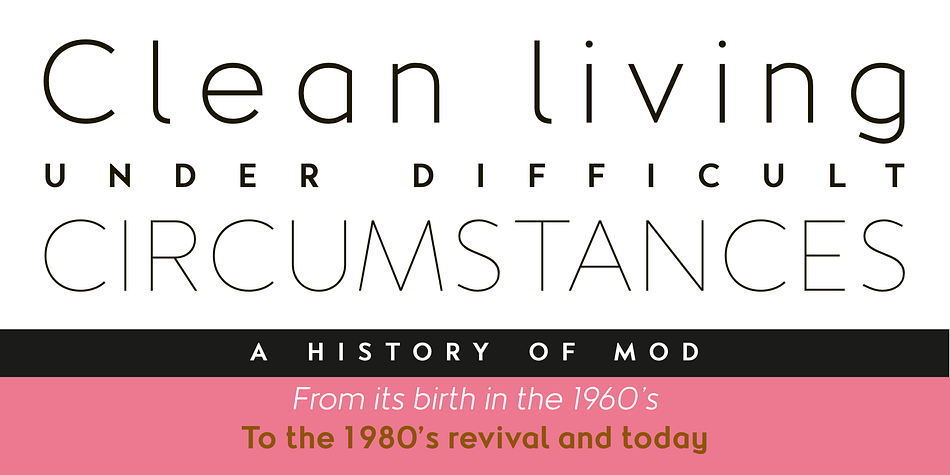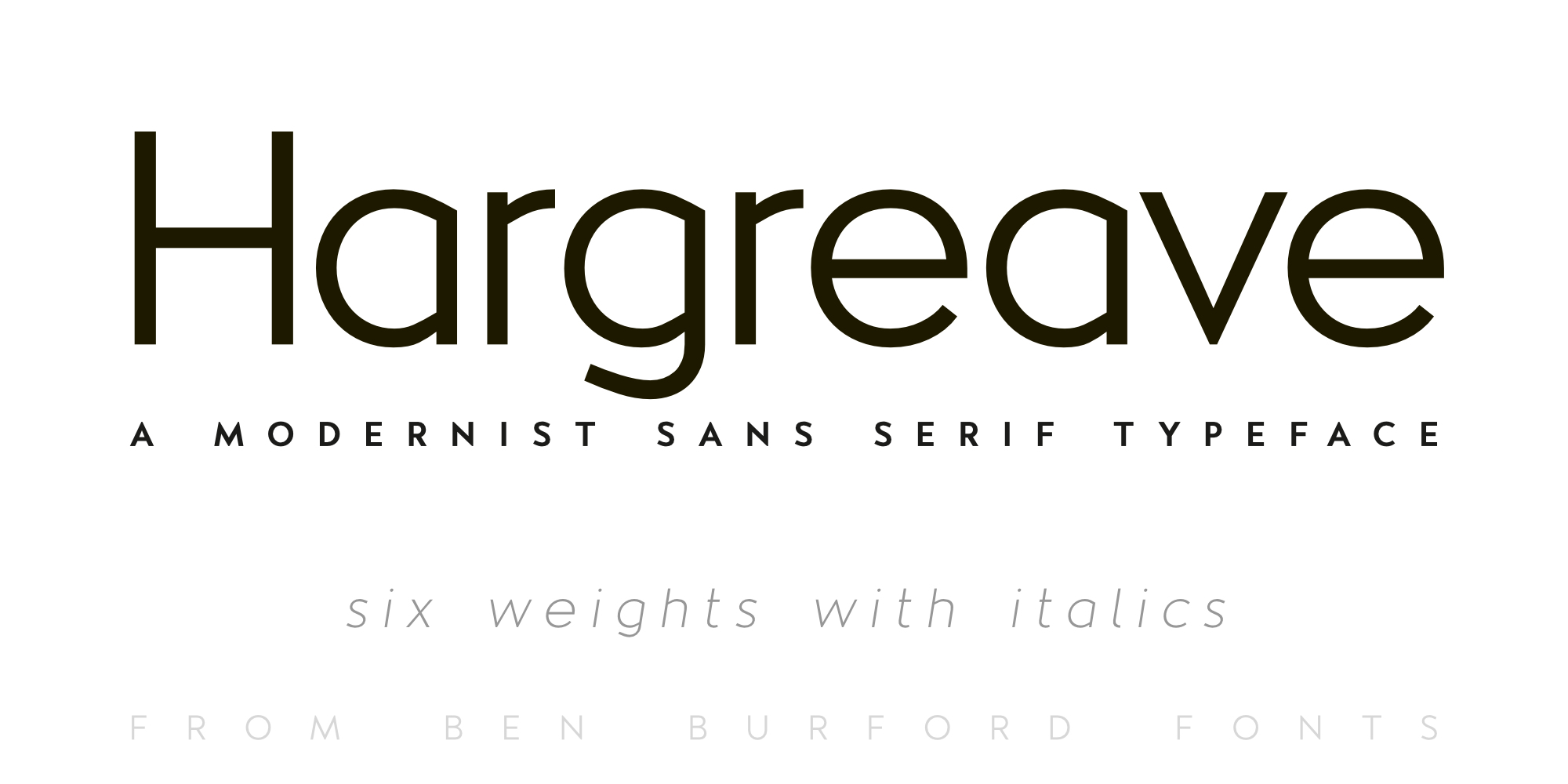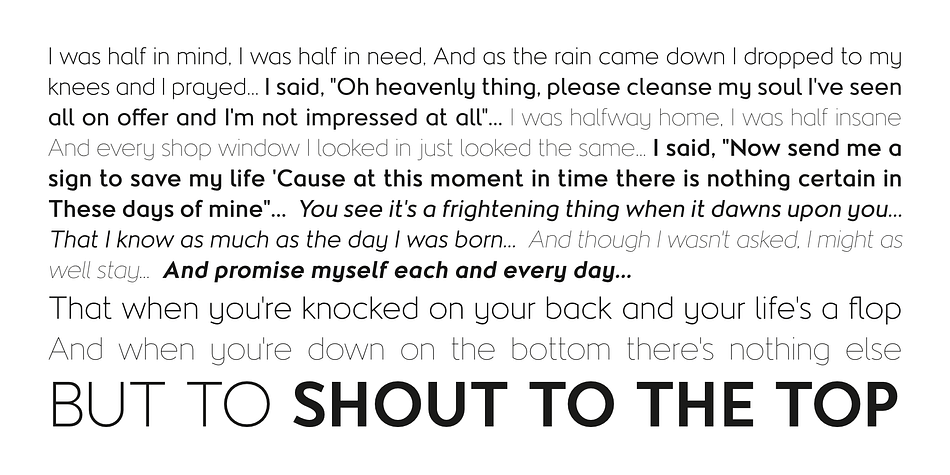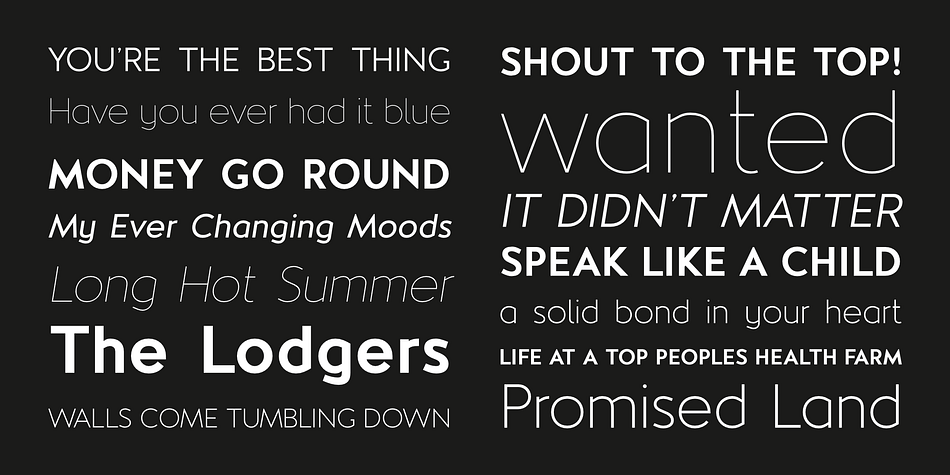
Hargreave Sans
Designed by Ben Burford, Hargreave Sans is a sans serif font family. This typeface has twelve styles and was published by Ben Burford Fonts.
Hargreave is a Modernist Sans Serif Typeface that gives a nod to early 20th century design giving it a ‘Modern Deco’ feel. This gives it a lot of scope for any design project